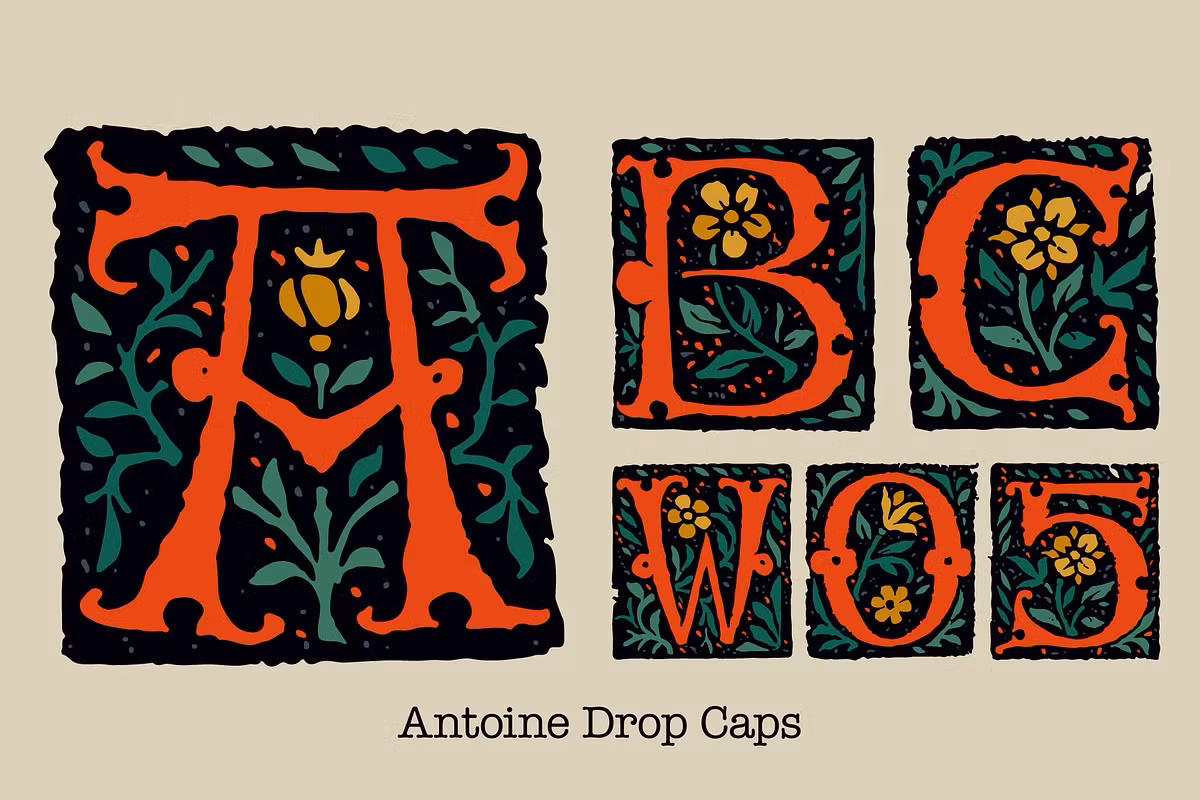
Antoine Medieval Drop Caps Font Free Download is a decorative and historical-inspired typeface that brings the elegance and drama of illuminated manuscripts to your designs. Featuring ornate capital letters styled in a medieval fashion, this font is perfect for fantasy books, historical documents, wedding invitations, logos, and any project that needs a touch of old-world sophistication.
Each letter in Antoine Medieval Drop Caps Font Free Download is crafted with intricate detail, ideal for use as decorative initials or to add visual flair to titles and headings. It’s especially powerful when used at large sizes, allowing the artistic flourishes to shine.